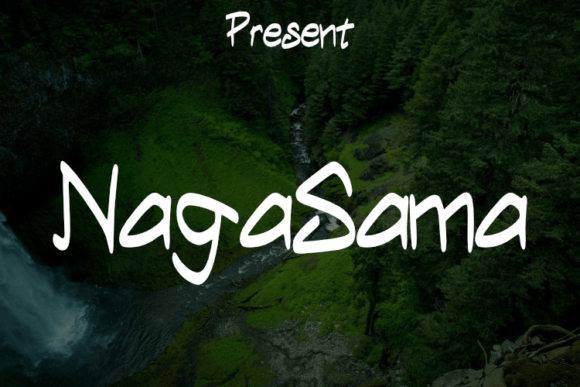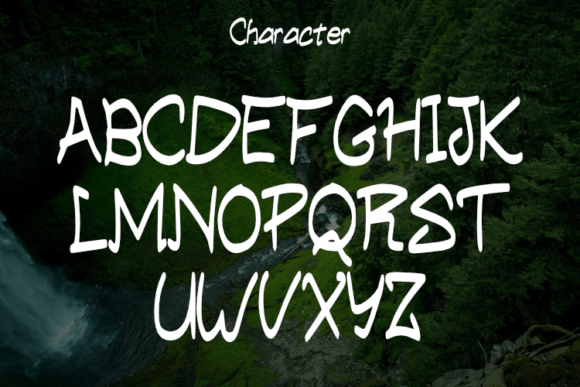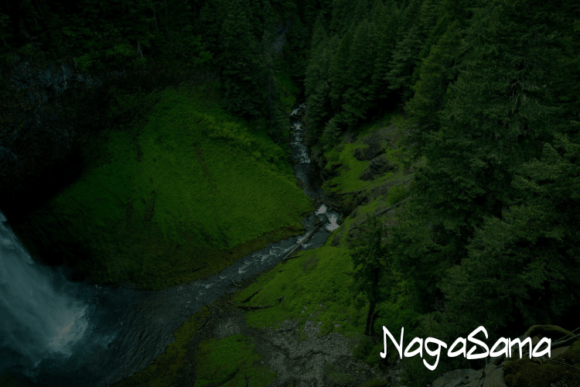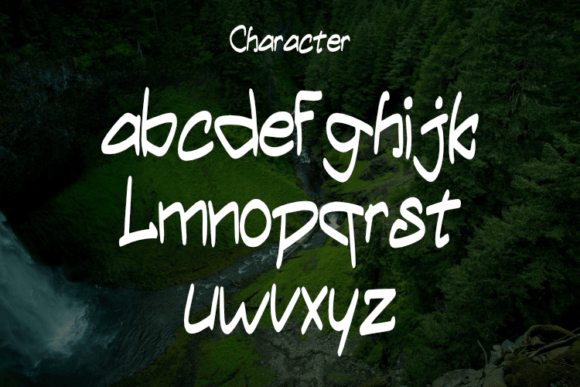
Nagasama Font
About Nagasama Font
**NagaSama** is a captivating script typeface that effortlessly blends a simple style with a modern look. Its clean and flowing letterforms make it an excellent choice for creating elegant and luxurious designs. This versatile font is perfect for crafting sophisticated logos, designing book or movie titles, enhancing the identity of fashion brands, elevating magazine layouts, adding a stylish touch to clothing labels, and infusing quotes and various typographic projects with a touch of refinement.
**Simple and Modern Elegance**: **NagaSama** embodies the essence of simple and modern elegance. Its understated yet stylish letterforms create a sense of sophistication and refinement. The font’s smooth curves and balanced proportions add to its modern allure, ensuring it appears both contemporary and timeless. Its simplicity gives it a versatile appeal, making it suitable for a wide range of design applications.
**Elegant and Luxurious Vibe**: The font exudes an elegant and luxurious vibe, making it ideal for projects that require a touch of opulence. Its graceful strokes and harmonious design elements contribute to its sophisticated aura, creating a sense of exclusivity and high-end style. Whether used for logos, fashion branding, or magazine layouts, **NagaSama** enhances the visual identity of any project, infusing it with an upscale and refined ambiance.
**Versatile Design Applications**: **NagaSama** is exceptionally versatile, adapting seamlessly to various design contexts. It is well-suited for logos, book and movie titles, fashion-related designs, magazine layouts, clothing labels, and quotes. Its ability to enhance diverse projects ensures a consistent level of elegance and luxury, making it a reliable choice for a wide range of creative endeavors.
**Timeless Sophistication**: Despite its modern appeal, **NagaSama** possesses a timeless sophistication that ensures its enduring beauty. Its classic elegance allows it to remain relevant and captivating, making it a valuable asset for designers seeking designs with lasting appeal. Its enduring charm ensures it stands the test of time, making it suitable for long-lasting branding and design solutions.
In summary, **NagaSama** is more than just a font; it’s a symbol of simple sophistication and modern luxury. Its clean lines, elegant curves, versatile applications, and timeless beauty make it a valuable tool for designers. By incorporating **NagaSama** into your projects, you can infuse them with an air of refinement and opulence, ensuring your designs exude an effortless blend of elegance and contemporary style. Let **NagaSama** be the elegant and luxurious choice that elevates your creative endeavors, making them truly exceptional and memorable.